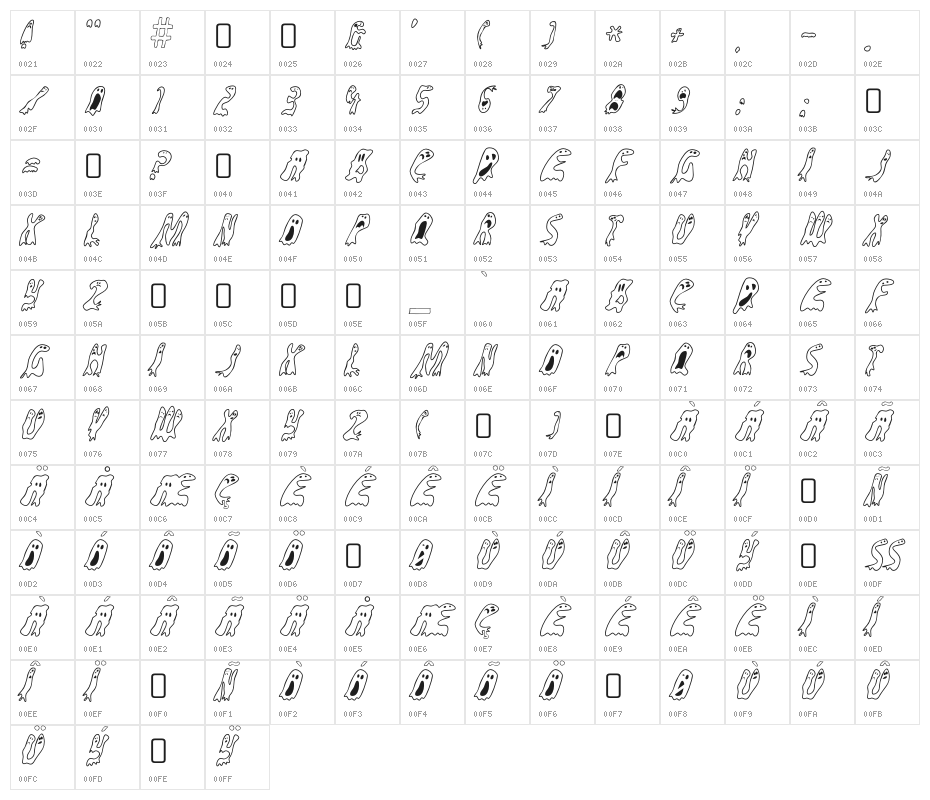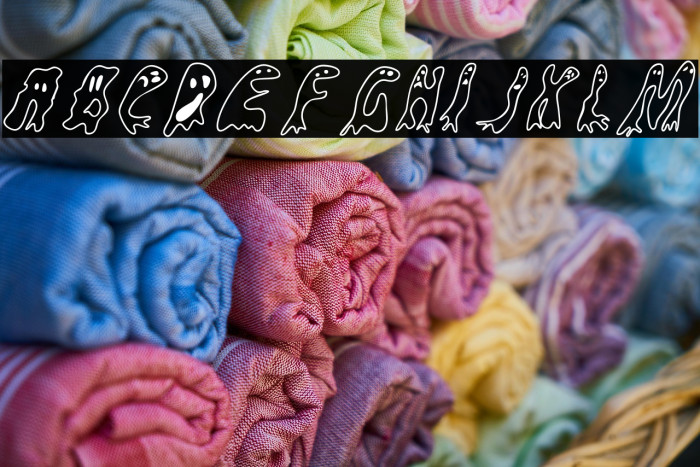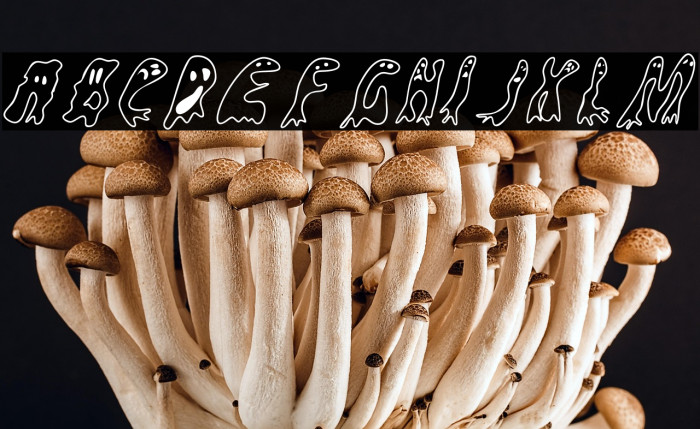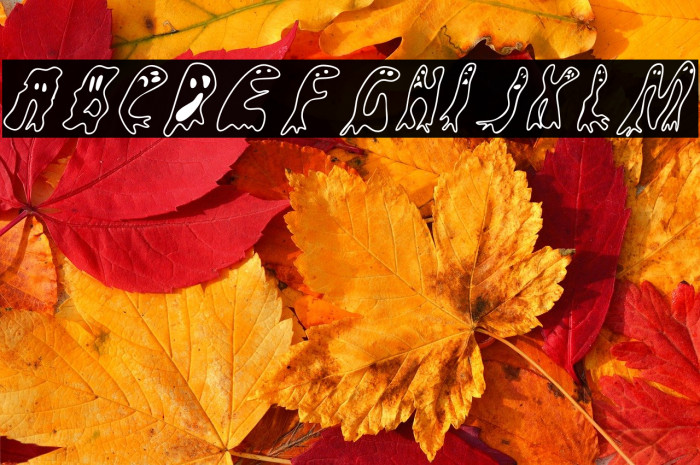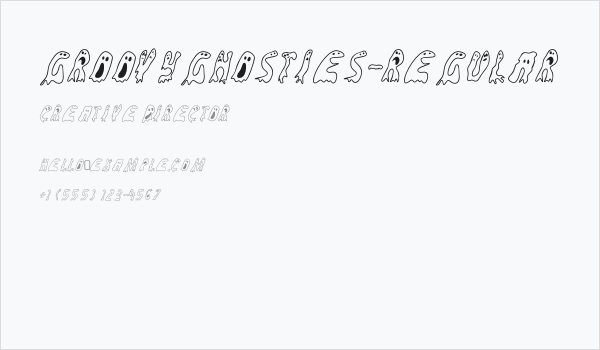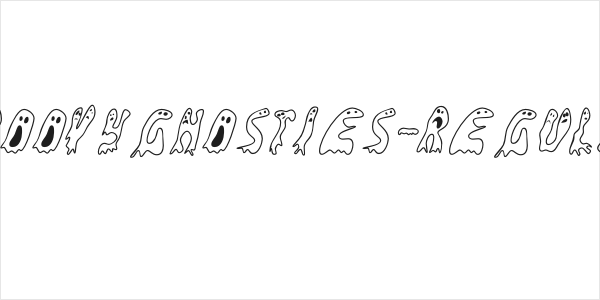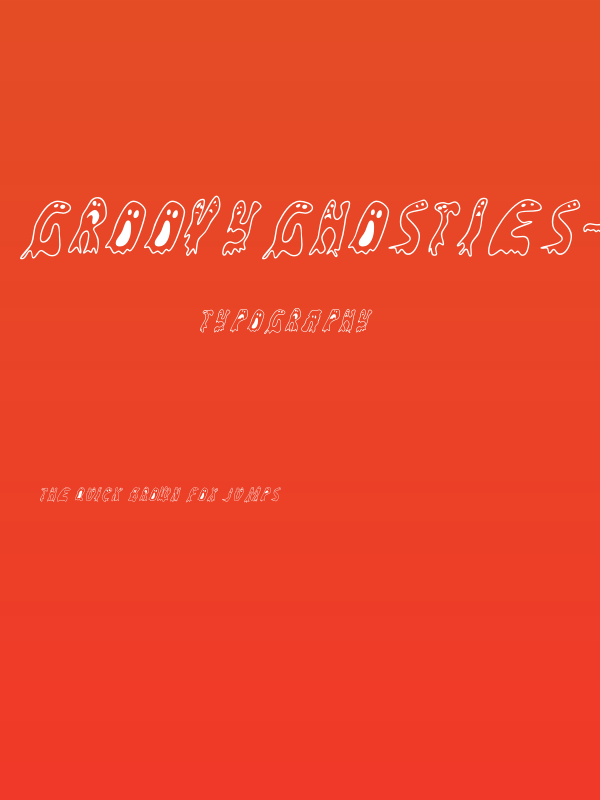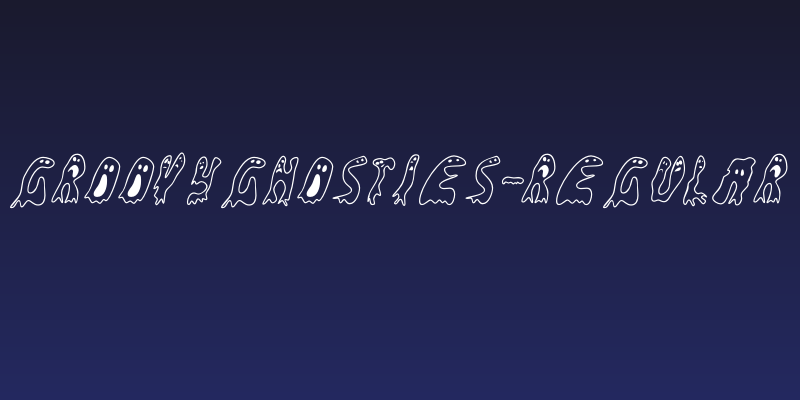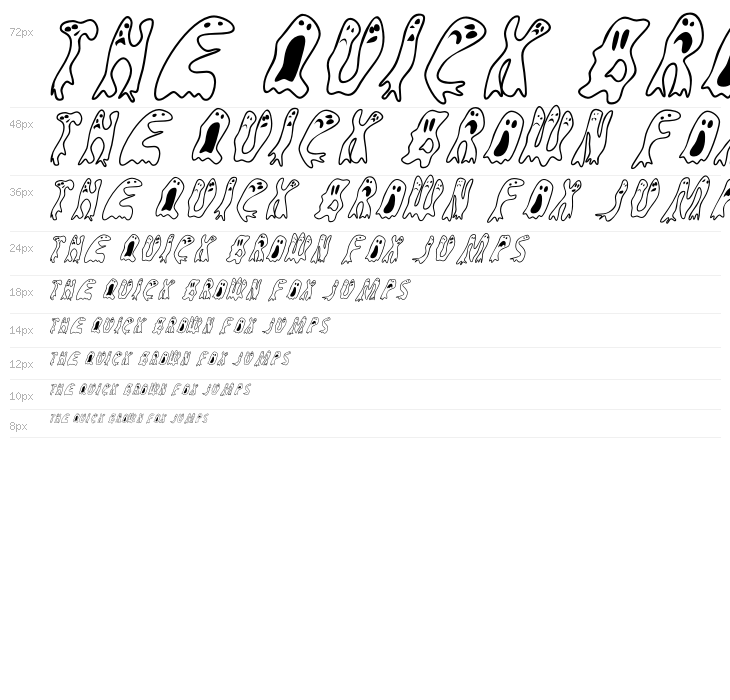
GroovyGhosties-Regular Font
GroovyGhosties-Regular Description
This playful and whimsical font features characters that resemble friendly ghosts, each with unique expressions and shapes. The design is highly decorative, with each letter and number taking on a ghostly form, complete with eyes and flowing lines that mimic the appearance of a sheet. The font is perfect for Halloween-themed projects or any design that requires a fun and spooky touch. The characters are outlined, providing a bold and striking appearance that stands out against any background.
Use CaseHeadlines, Logos, Themed Events
Proposed ProjectsIdeal for Halloween invitations, themed party decorations, children's book titles, and playful branding.